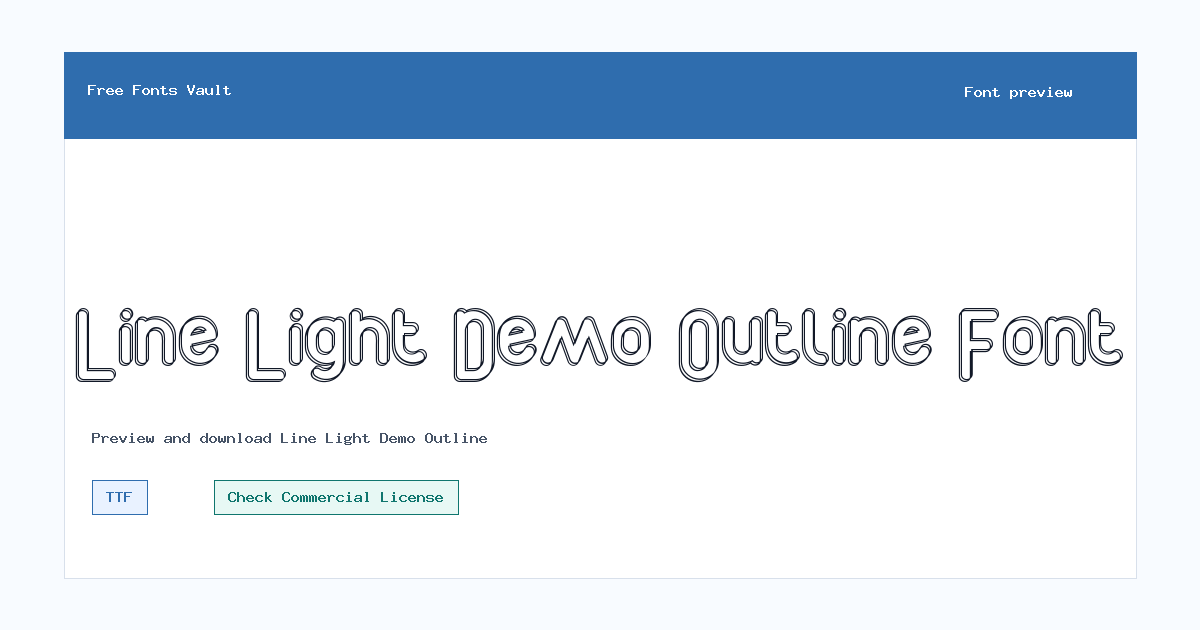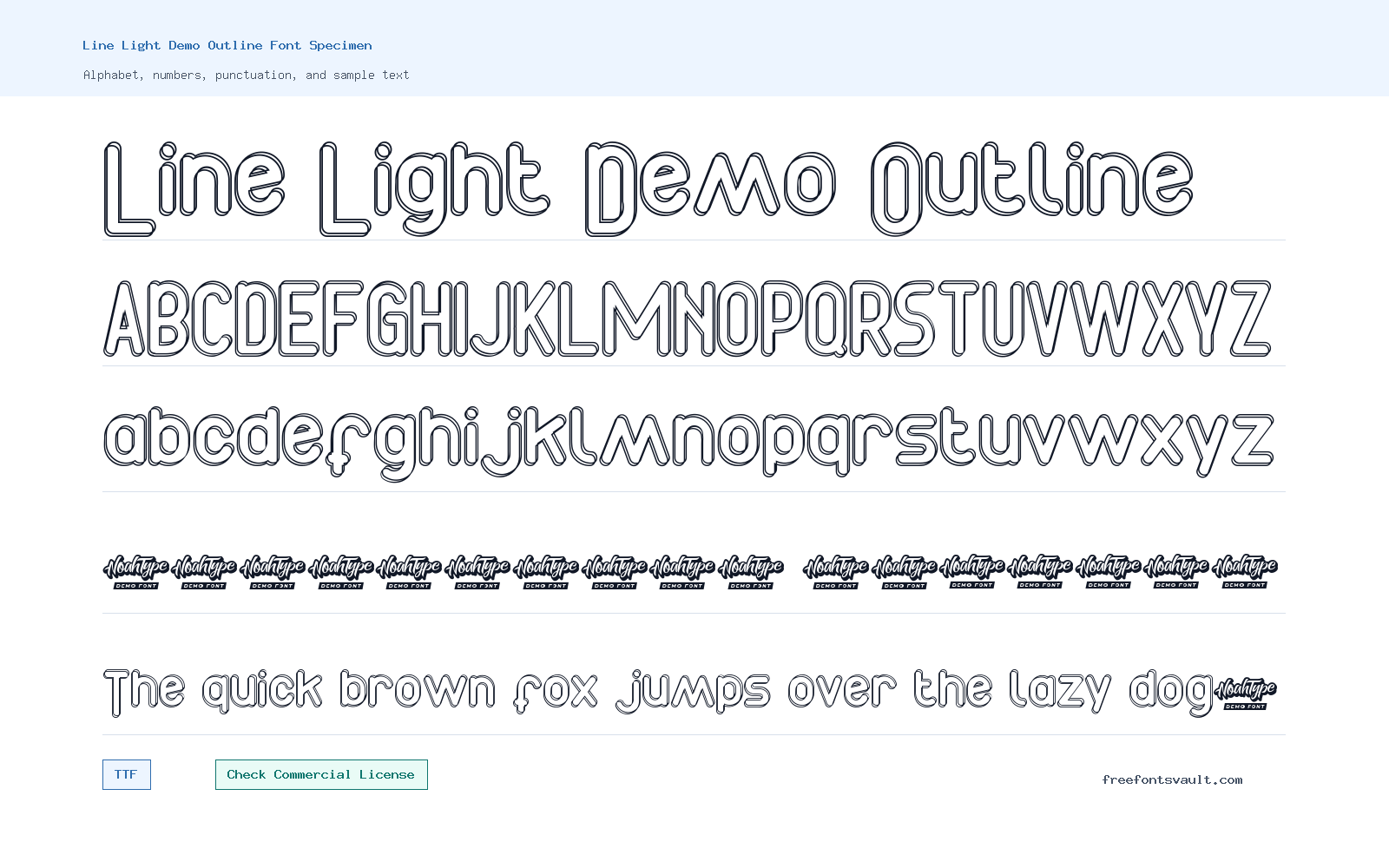
Line Light Demo Outline
- Designer Shalsha & Sarah SP
- Foundry NoahType
Line Light Demo Outline font.
Line Light Demo Outline is a thin outline display font with a clean, airy look for short text, headings, and decorative preview work.
About Line Light Demo Outline
Line Light Demo Outline uses a light outlined style rather than a filled letter shape. That makes it better for display settings where the letters can stay large enough to show their open structure. It is not the best choice for long paragraphs or small body text, because outline fonts can lose clarity when reduced.
Line Light Demo Outline is a display font, so judge it at the same size you plan to use in the final design. Outline styles can look crisp in large titles but lose detail quickly in small captions. Try short words, initials, and numbers in the preview before choosing it for a logo draft or poster.
- Thin outline letter style for decorative display text
- Large headings, names, and short title designs
- Posters, social graphics, invitations, and preview mockups
The designer is listed as Shalsha & Sarah SP, with NoahType named as the foundry.
Keep Line Light Demo Outline large, avoid dense paragraphs, and test it on both light and dark backgrounds. Outline fonts often need extra size and contrast to stay readable. Keep backgrounds quiet and avoid thin outlines over busy photos. Strong contrast helps the letter shape stay readable.
What kind of projects is this font good for?
It is best for short display text such as titles, names, posters, social graphics, and decorative layouts where the outline style can be shown at a larger size.
Is this font good for body text?
It is not ideal for long reading text. The light outline design is easier to read in large sizes and short phrases.
Is Line Light Demo Outline for long text?
No. Use it for short display text such as titles, badges, initials, and decorative headings.